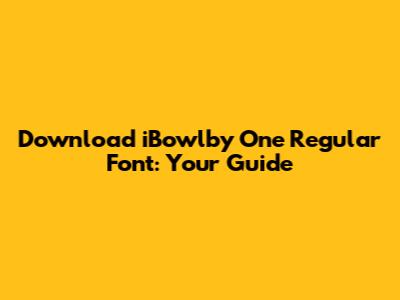
Download IBowlby One Regular Font: Your Guide
Hey guys! Ever stumble upon a font that just speaks to you? One that makes your designs pop and grabs attention? Well, if you're anything like me, you've probably spent countless hours hunting down the perfect typeface. Today, we're diving deep into the world of typography, specifically focusing on the iBowlby One Regular font download. I'm gonna walk you through everything you need to know, from where to snag this awesome font to how to use it like a pro. So, buckle up, because we're about to embark on a font-tastic journey!
Why iBowlby One Regular Font? Decoding Its Charm
Alright, let's get down to brass tacks: why should you even care about the iBowlby One Regular font? What makes it stand out from the sea of other fonts out there? Well, for starters, it's got a certain je ne sais quoi. It's a blend of modern and classic, with clean lines and a friendly vibe. Think of it as the ultimate wingman for your designs – it'll make everything look better! This font is particularly great for headings, titles, and anything that needs to make a bold statement. Its readability is top-notch, meaning your audience won't struggle to understand your message. Plus, it just looks good. Really good. Seriously, try it out, and you'll see what I mean. I love using this font for my blog posts and social media graphics. It always adds a touch of sophistication without feeling stuffy. And the best part? It's super versatile. Whether you're working on a website, a poster, or even a presentation, iBowlby One Regular has got you covered. In the design world, finding a font that ticks all the boxes is like finding a unicorn. It's rare, but when you do, it's pure magic. iBowlby One Regular is, for many designers, one of those magical finds. The font offers a unique blend of style and legibility, making it an excellent choice for a variety of projects. But beyond aesthetics, there's a practical element to consider. Choosing the right font can significantly impact your design's overall effectiveness. A well-chosen font can capture your audience's attention, communicate your message clearly, and create a lasting impression. With its clean lines and inviting appearance, iBowlby One Regular achieves all three of these goals, making it an ideal choice for many design scenarios. It is more than just a font; it is a communication tool.
Characteristics of the Font and Where it Fits Best
The beauty of iBowlby One Regular lies in its simplicity and effectiveness. It's a sans-serif font, meaning it doesn't have those little strokes at the end of the letters (serifs), giving it a modern and clean look. Its weight is 'regular,' which makes it highly readable in various sizes, perfect for both large headlines and smaller body text. This font is perfect for any project. Whether you're designing a website, creating promotional materials, or simply looking to add a touch of style to your personal projects, this font won't let you down. It is particularly well-suited for headings and titles, thanks to its bold presence and excellent readability. However, it also works well for shorter blocks of text, making it a versatile option for various design needs. Its adaptability is one of its strongest suits, making it a must-have for any designer's toolkit. Consider the context of your design: the iBowlby One Regular font shines when clarity and impact are needed. It's a great choice when you want your message to be instantly understood. The font's design ensures that it captures attention without being overly complicated or distracting. Because of this, it is perfect for headings, titles, and any text that needs to stand out. It adds a touch of modern flair while maintaining excellent readability. Whether you're designing a website, creating a poster, or working on any other design project, the font offers a balanced approach to design, making your text both stylish and legible. Furthermore, its clean and uncluttered design makes it adaptable to various design themes and styles. It blends well with a range of design elements, making it an excellent choice for those seeking a font that delivers both aesthetic appeal and practical functionality. You can download the font and immediately make it one of your most used.